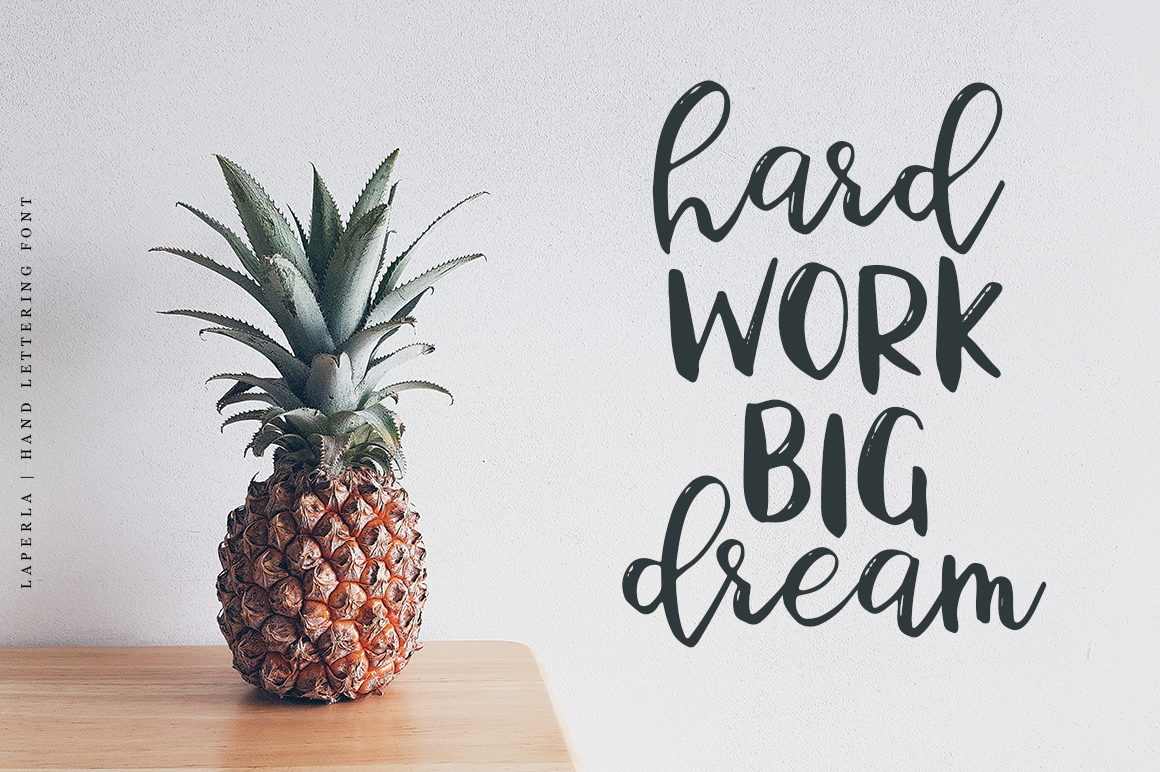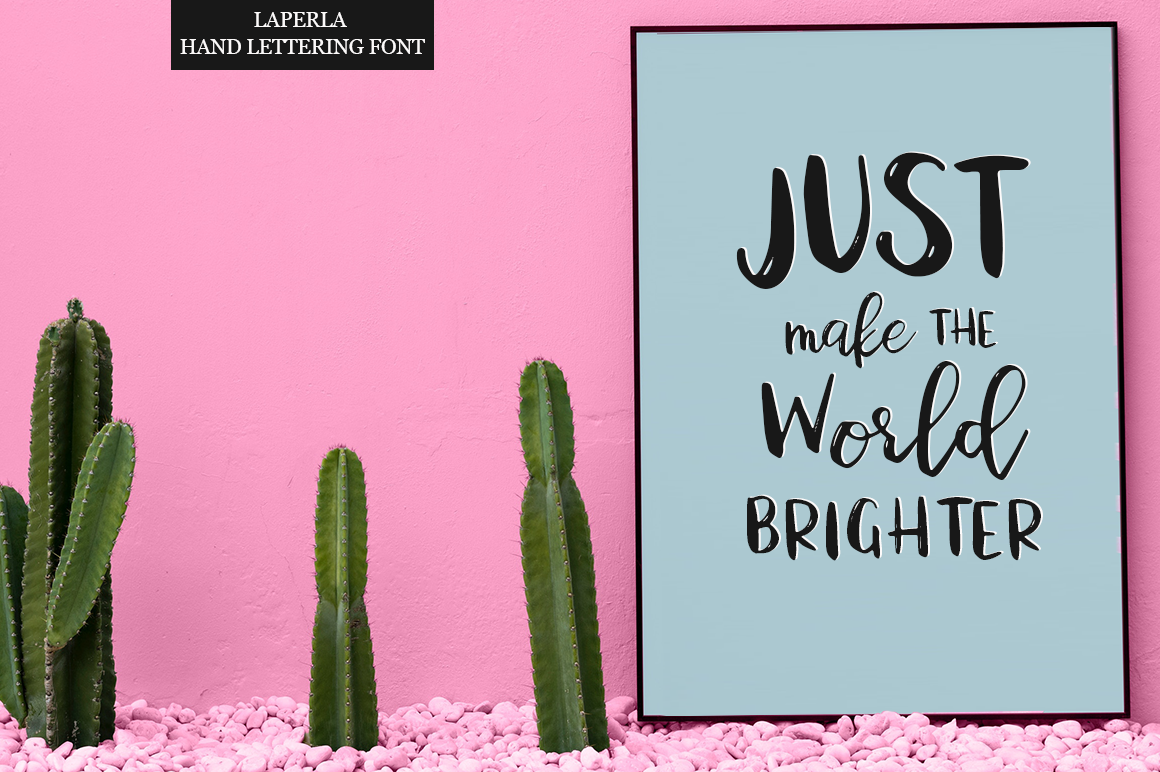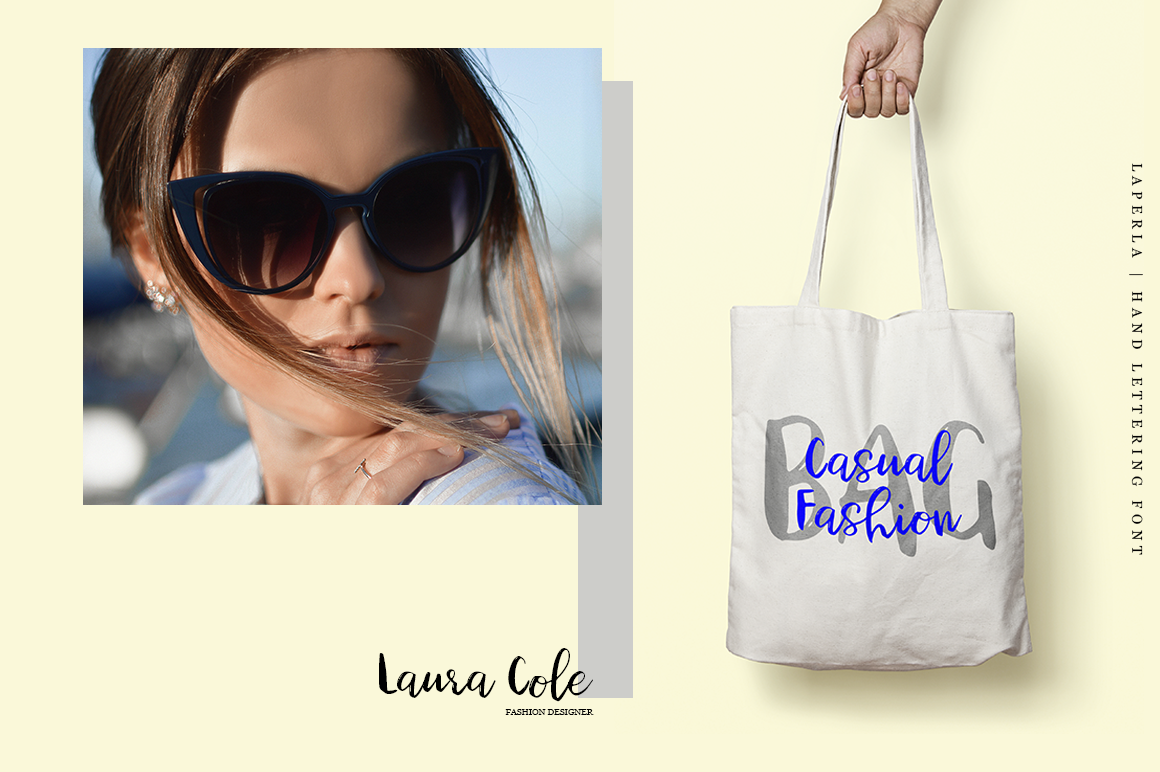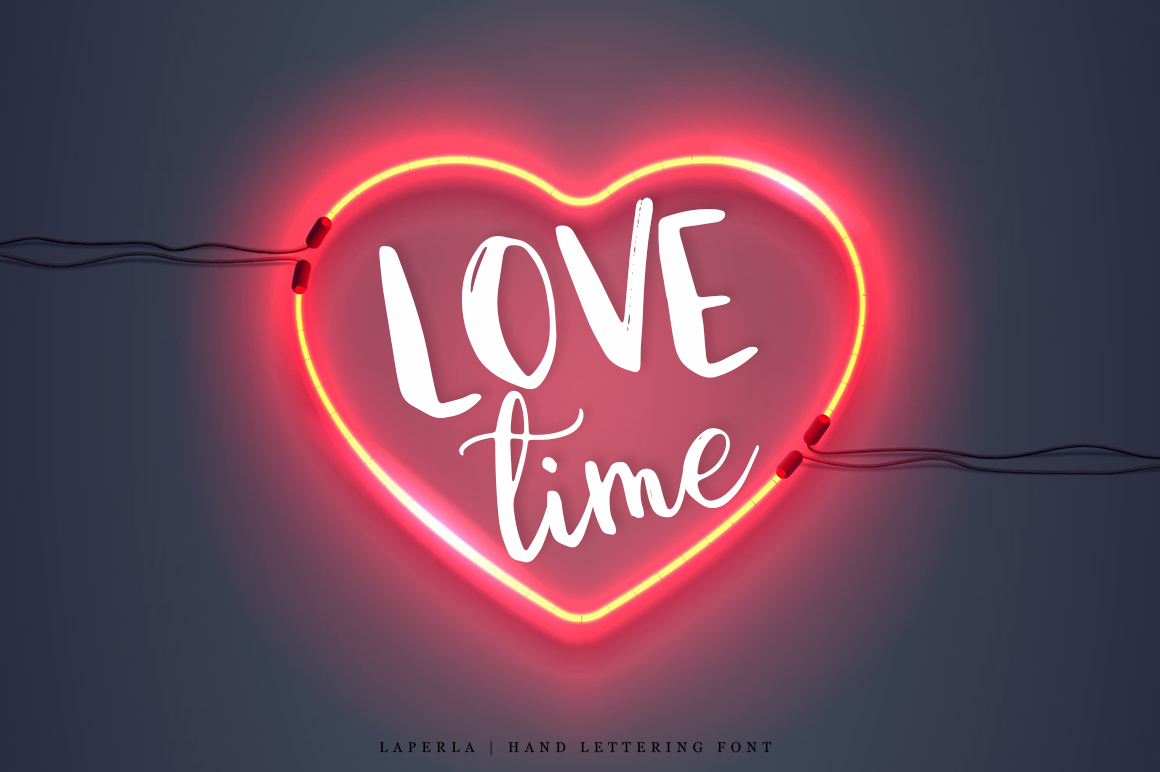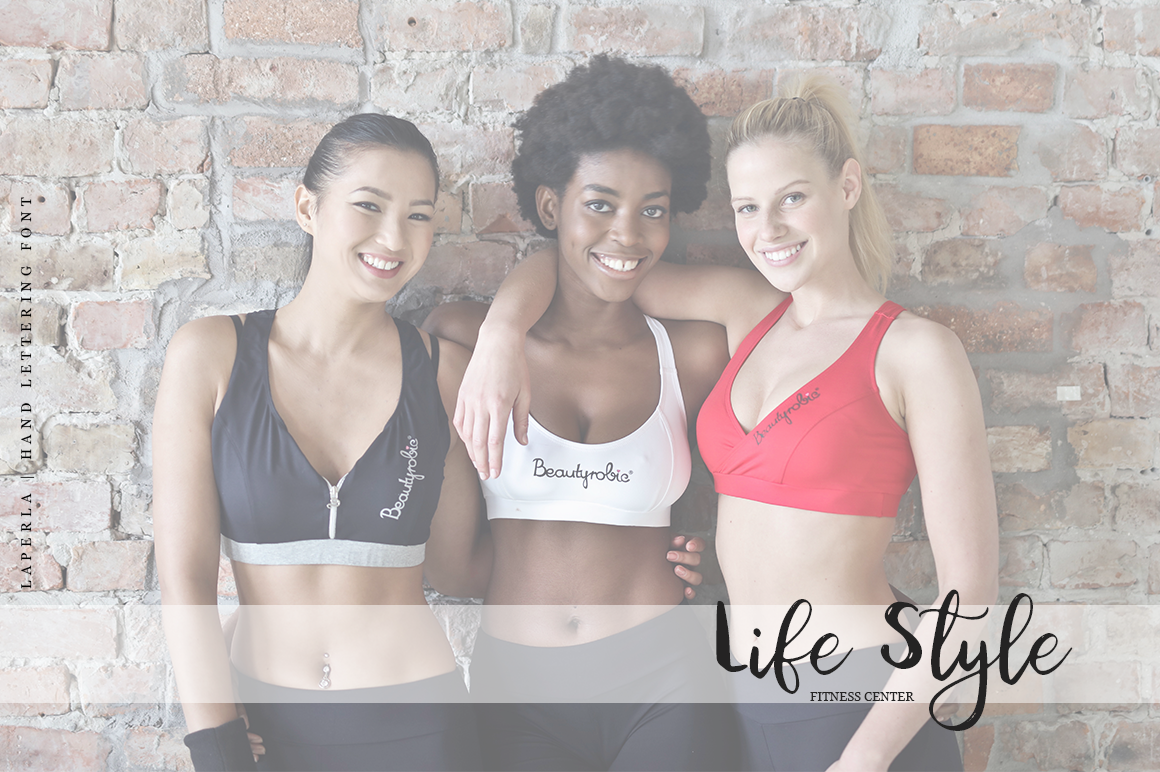
Introduction to Laperla Font
Have you ever been stuck on a design project, staring at a blank canvas, trying to find the perfect font to bring your creative vision to life? That’s exactly where I was when I stumbled upon the Laperla Font. This beautiful, handmade calligraphy script font is a game-changer for designers looking to add a touch of elegance and sophistication to their designs.
As a designer, I can attest that finding the right font can make all the difference in a project. And that’s exactly why I’m excited to share the Laperla Font with you. With its unique, hand-crafted feel and high-quality design, this font is a valuable resource for any creative project. Whether you’re working on a branding project or creating a design for social media, the Laperla Font is sure to impress.
Key Features of Laperla Font
- High-quality design resource for creative projects, perfect for those seeking a unique touch.
- Designed with a focus on creativity and originality, Laperla Font is ideal for designers looking to add a personal touch to their work.
Honest Review: Laperla Font
As a designer, I’m always on the lookout for high-quality design resources to enhance my creative projects. Recently, I stumbled upon the Laperla Font, and I’m excited to share my honest review with you.
What works well: ✨ The Laperla Font offers a beautiful, elegant script style that’s perfect for adding a touch of sophistication to any design. The font is highly legible and comes in a range of weights, making it versatile for various design applications.
Some notable features of the Laperla Font include:
- High-quality design, suitable for various creative projects
⚠️ However, I do have a few limitations to mention. The font may not be the best choice for bold, sans-serif designs, as it’s primarily a script font. Additionally, some users may find the font a bit too ornate for certain design applications.
Overall, I’m impressed with the Laperla Font’s high quality and versatility. It’s a great addition to any designer’s toolkit and can add a touch of elegance to various creative projects.
Laperla Font
The Laperla Font is a high-quality design resource ideal for creative projects that require a unique and elegant touch. With its transparent background, it’s easy to integrate into your designs.
Tips for Getting the Most Out of Laperla Font
To get the most out of the Laperla Font, experiment with different font sizes, colors, and combinations to create unique and eye-catching designs.
The Laperla Font is ideal for a variety of creative projects, including wedding invitations, business cards, and branding materials.